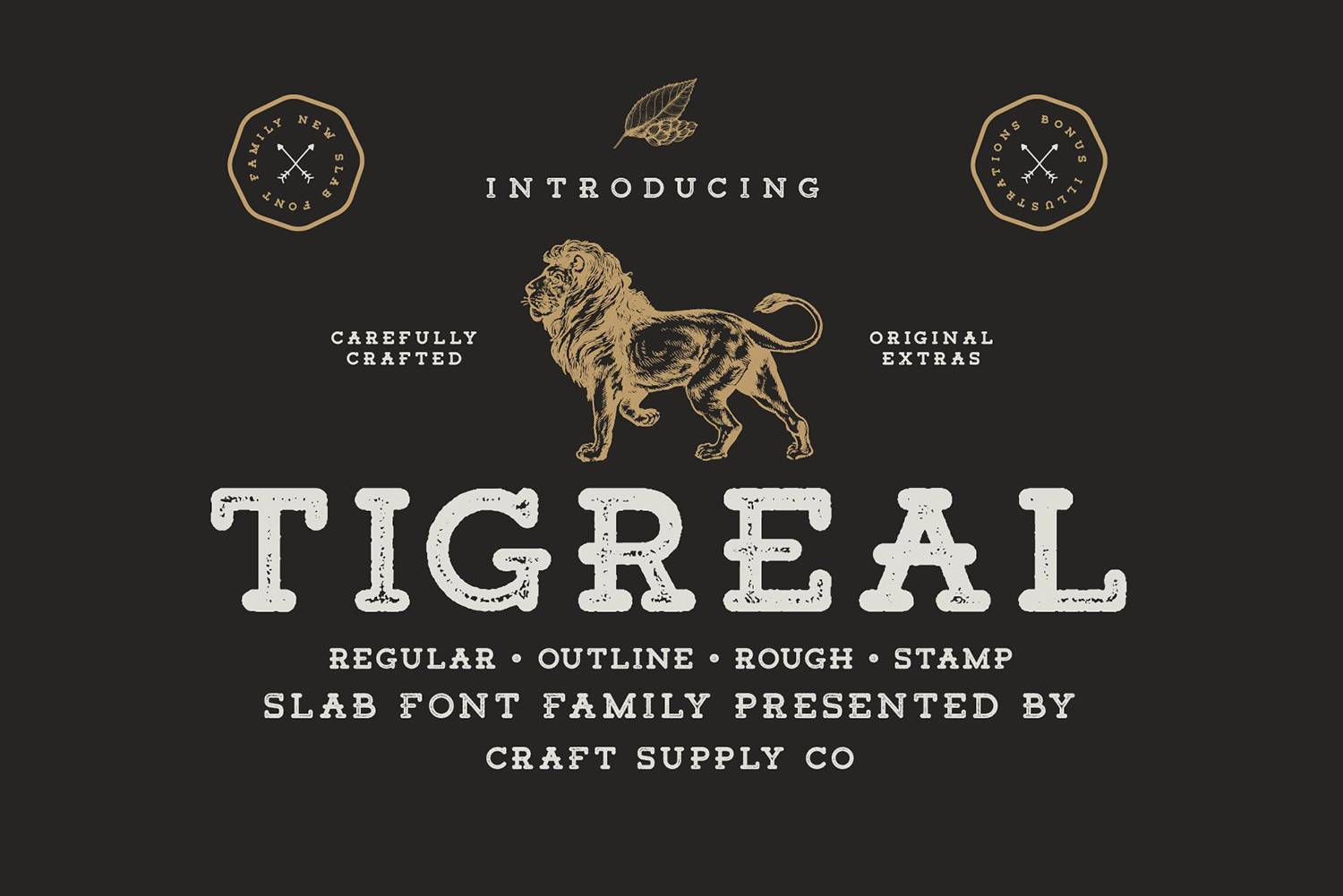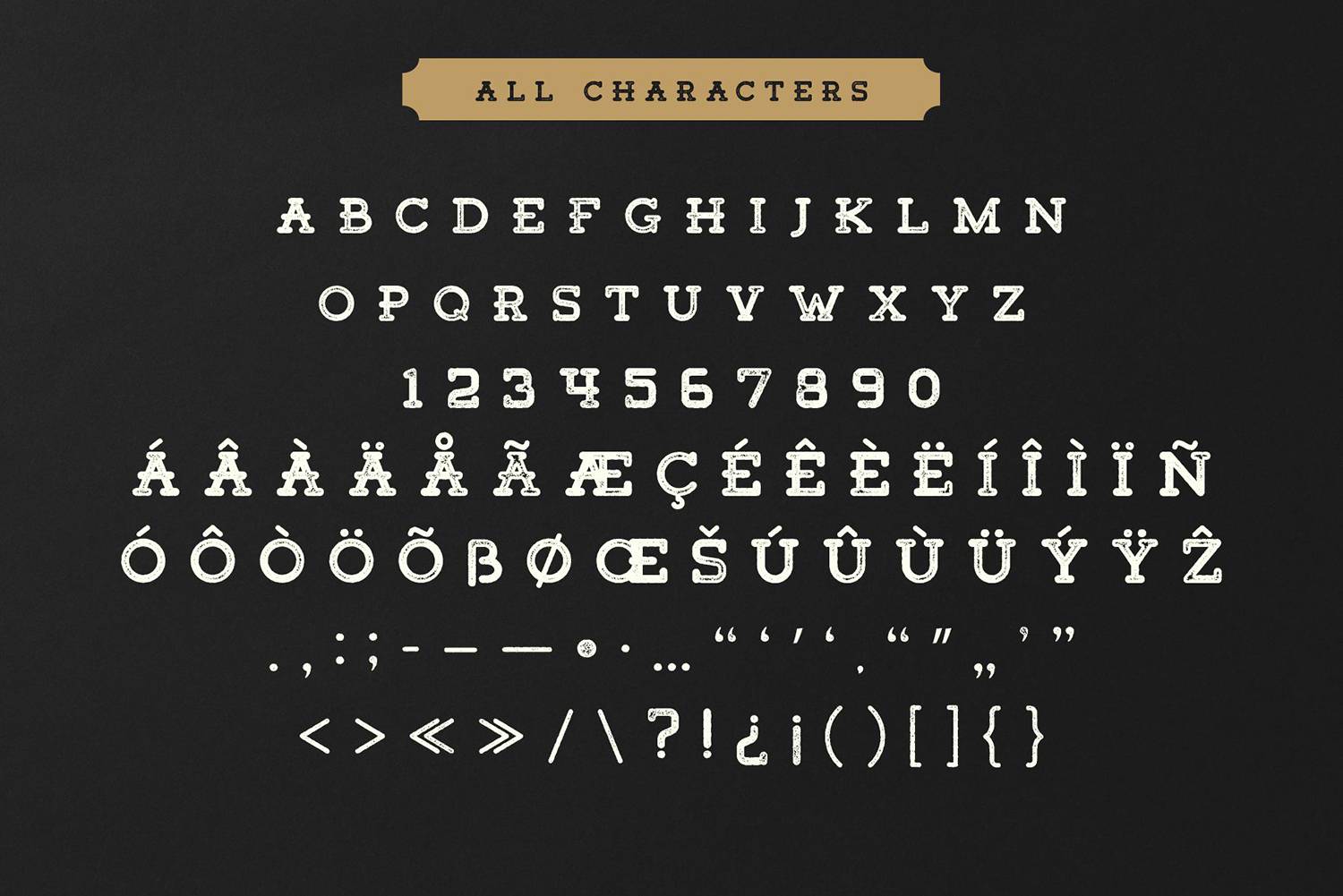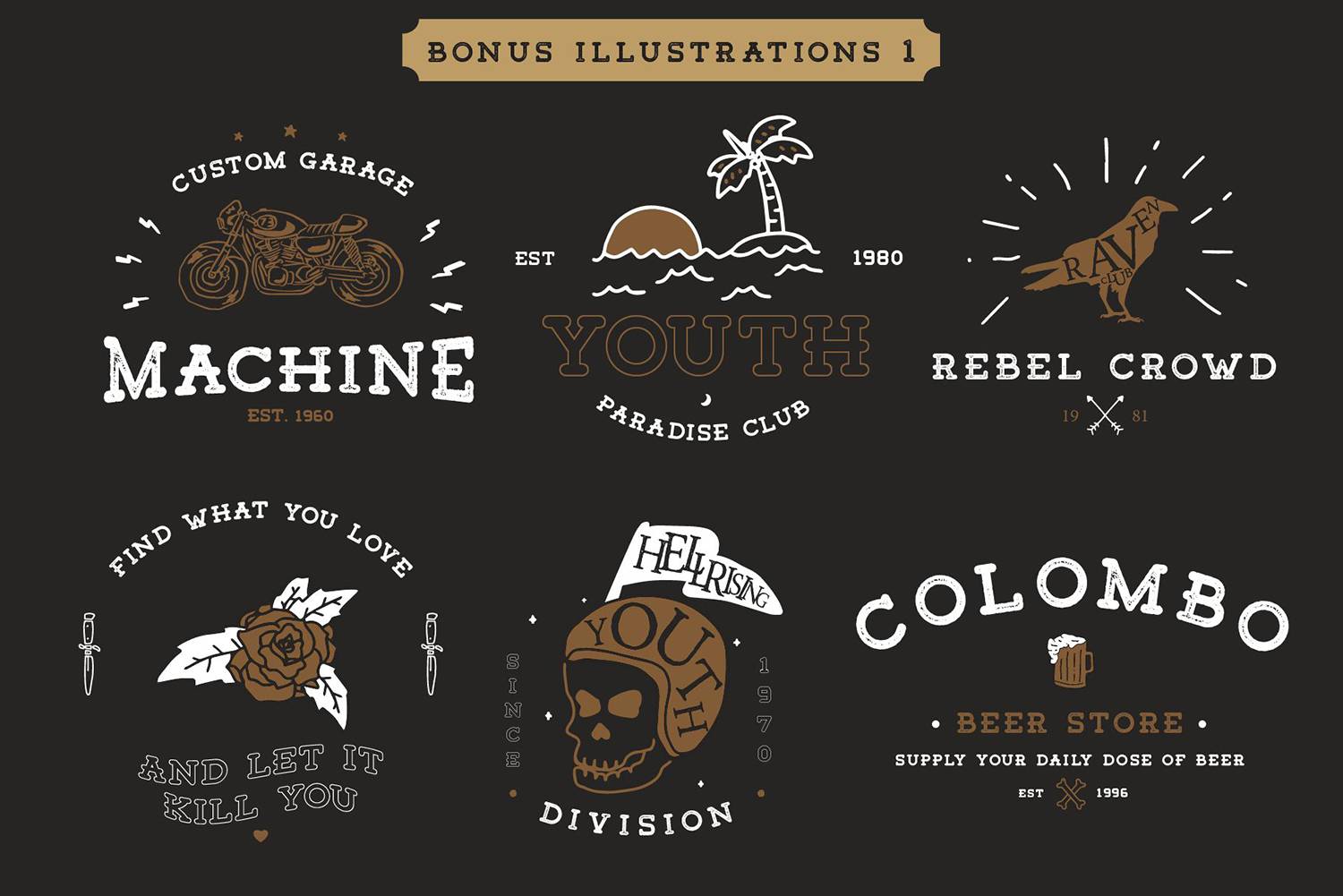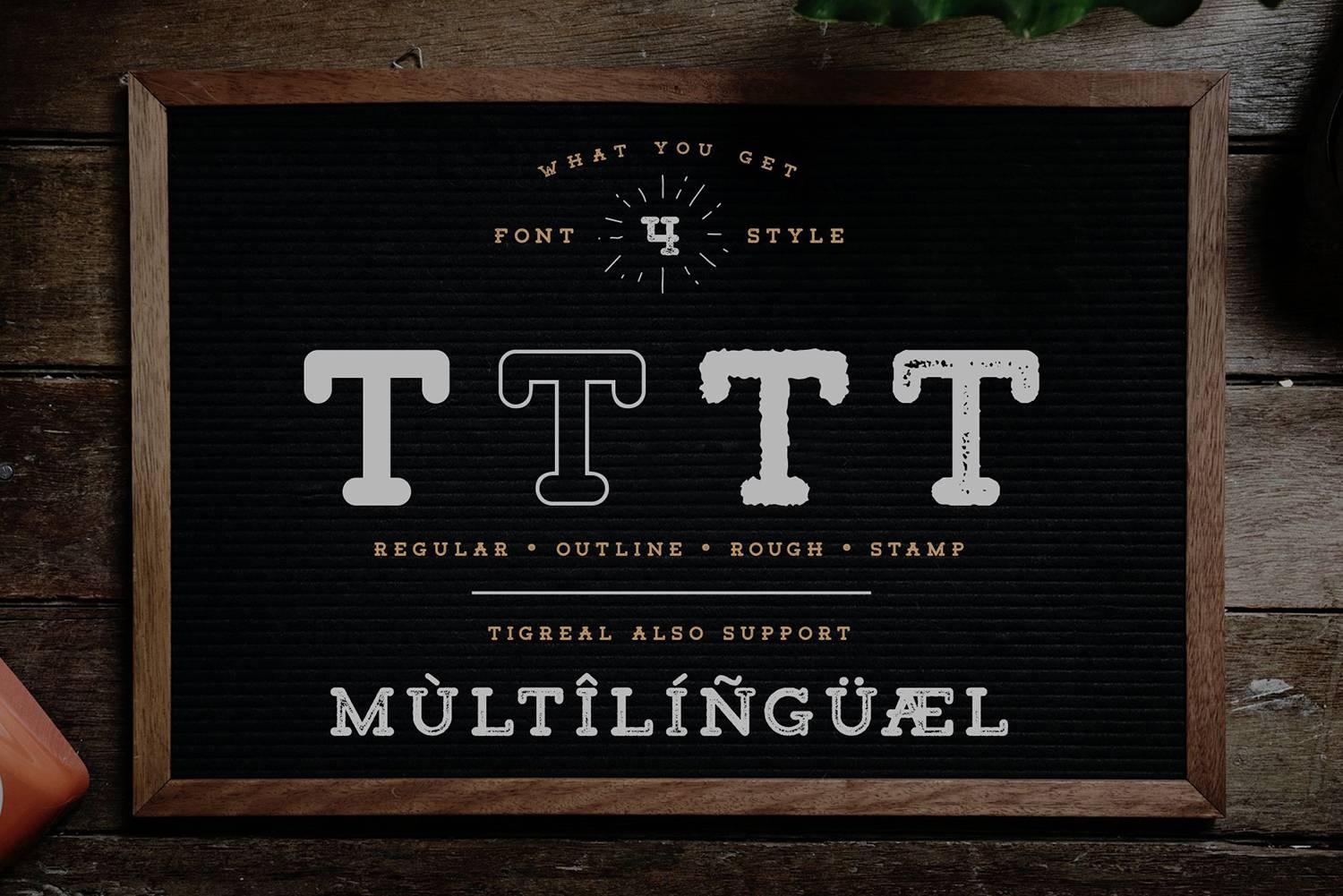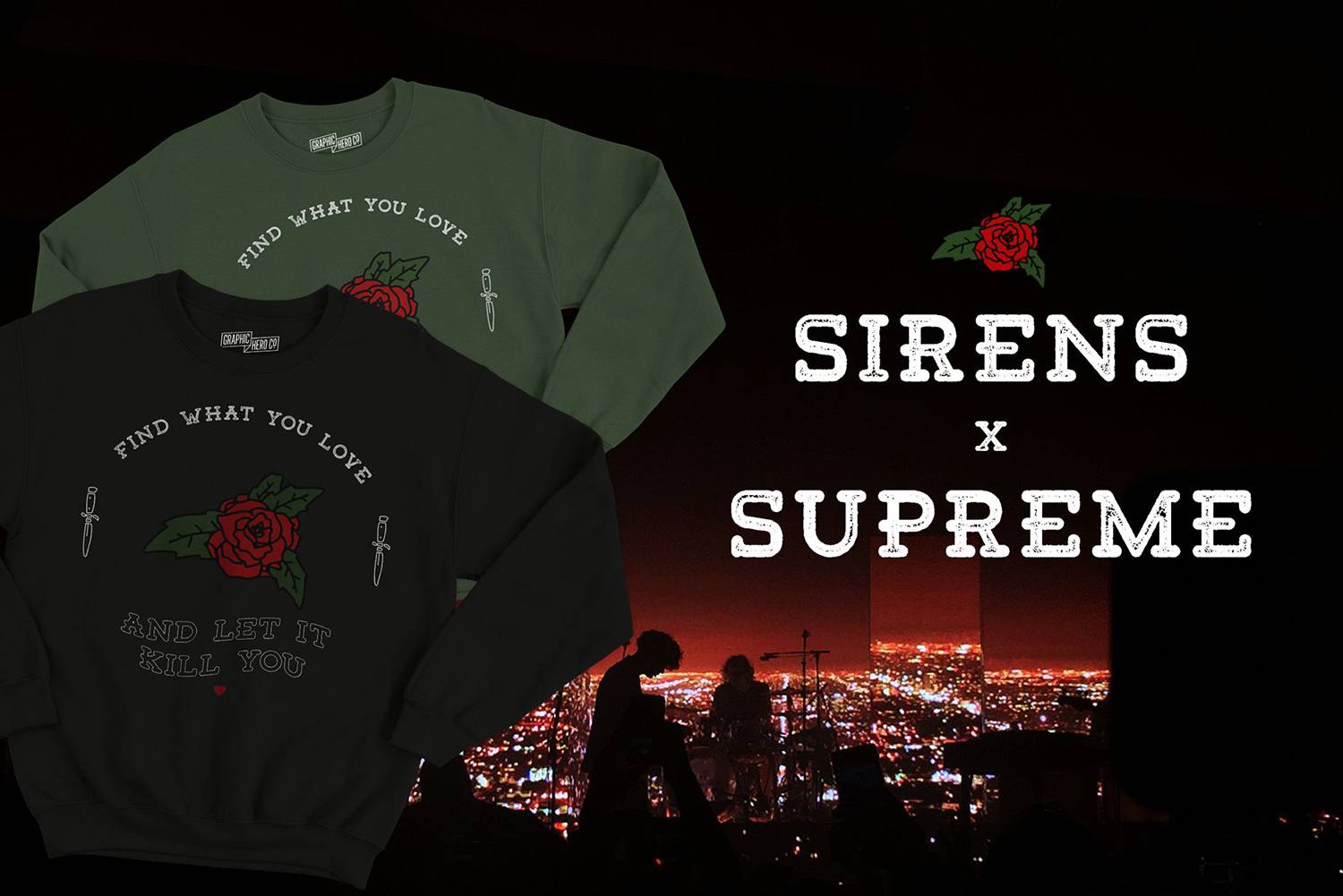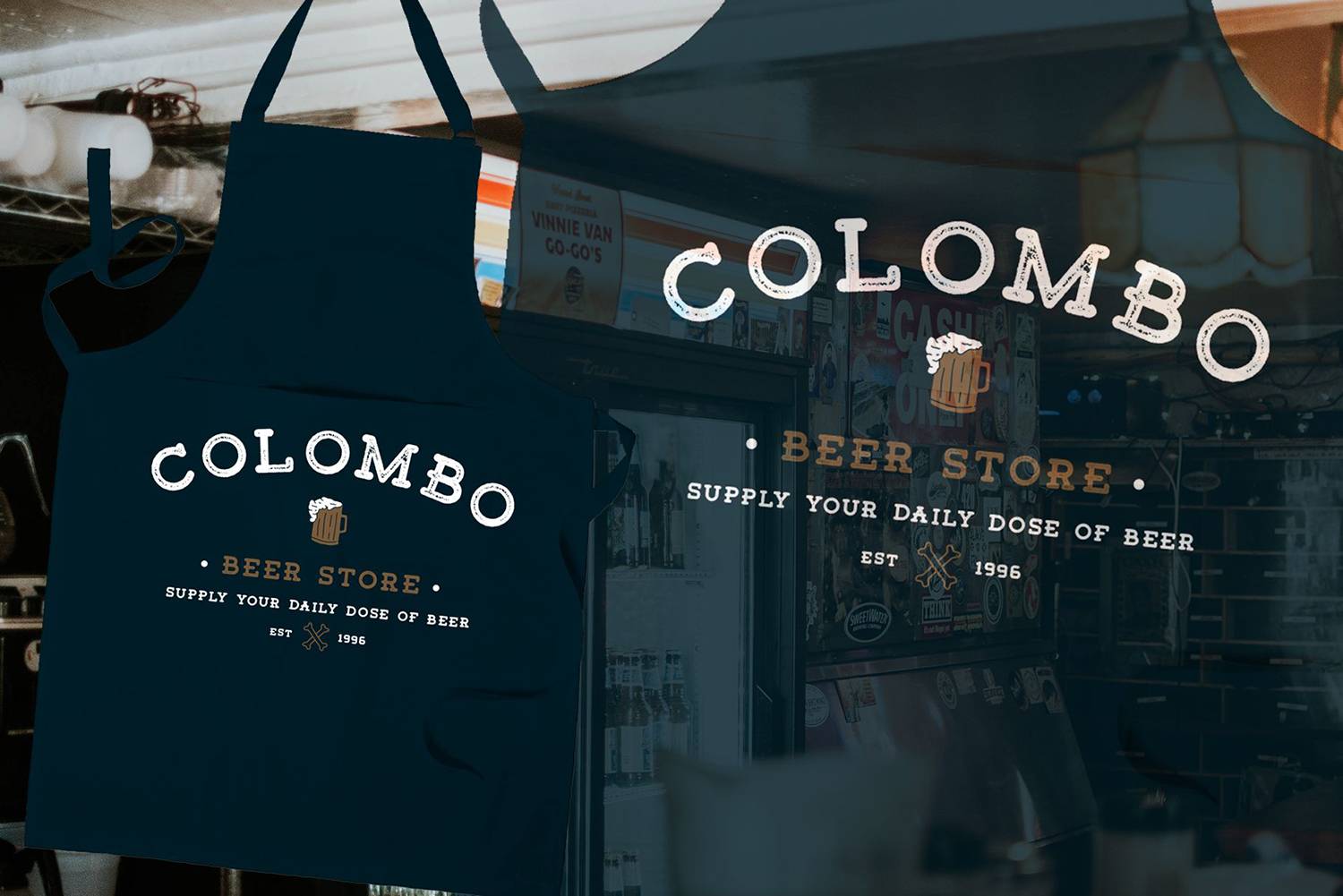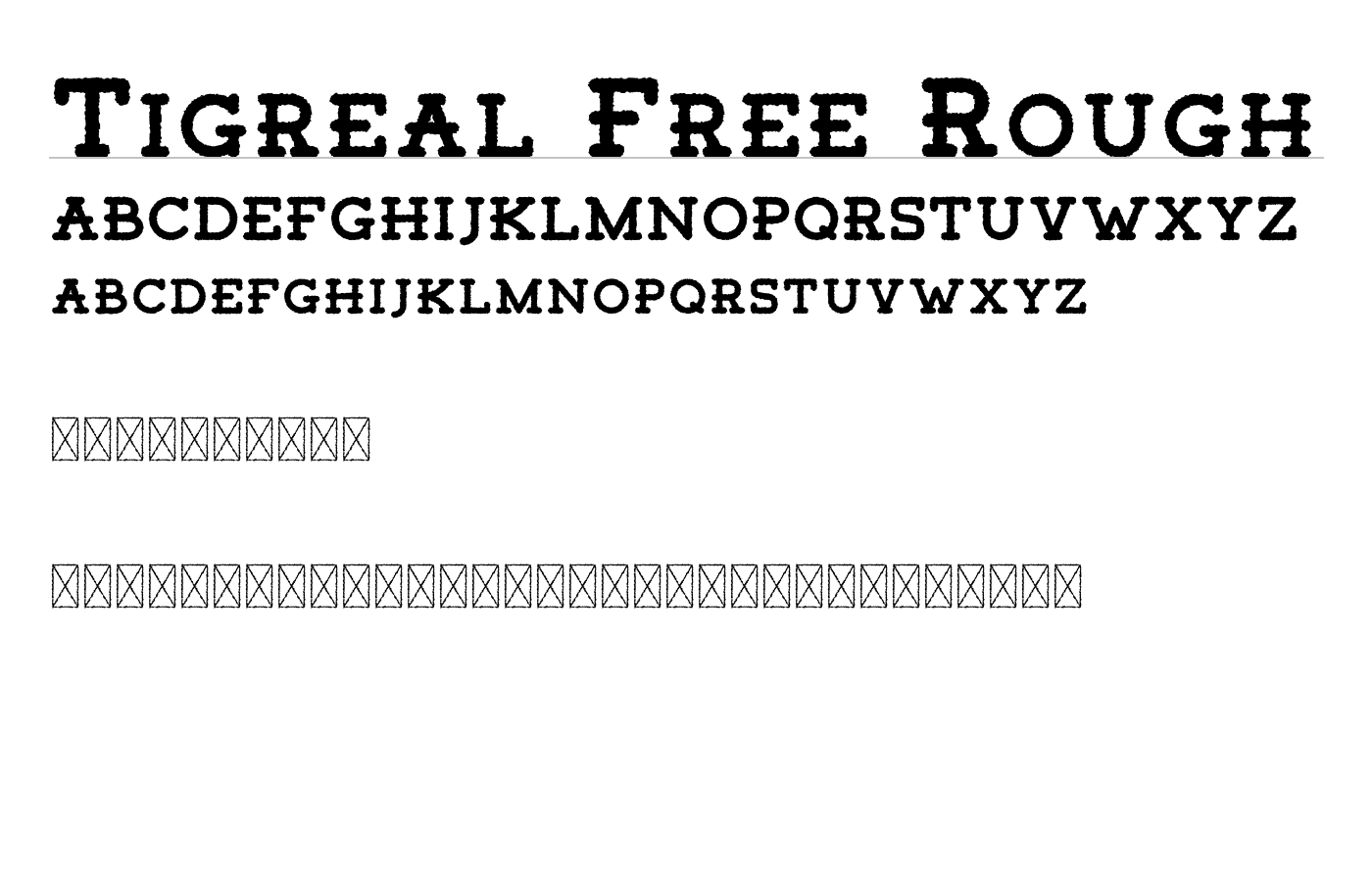
Tigreal Free Rough is a bold, rough-textured slab serif font that evokes a vintage, typewriter-like feel with its distressed strokes and stamped irregularities. Its uppercase-only design features a strong, sturdy presence with slightly condensed letterforms, making it perfect for headlines, posters, and branding projects that seek an authentic, retro, or industrial look. This font works well when you want to add character and a handcrafted touch while maintaining clear readability.
Tigreal Font
Category: Slab-serif
About Tigreal Font
| Font family | Tigreal Font |
| Category | Slab-serif |